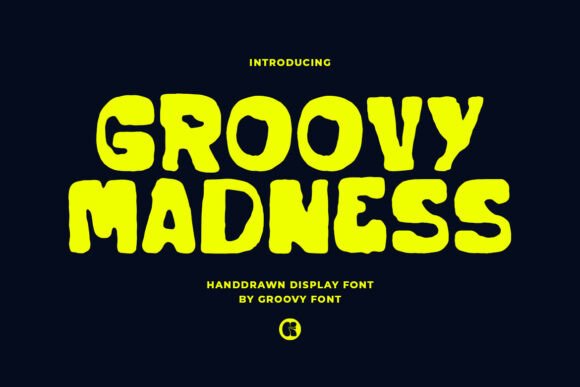
Groovy Madness Font: Unleash the Rebellious Spirit in Your Designs
In the world of typography, fonts play a crucial role in conveying the tone and personality of a design. When it comes to creating bold and eye-catching visuals, the right font can make all the difference. If you’re looking for a font that exudes a rough and bold aesthetic, look no further than the Groovy Madness Font. This hand-drawn display font is perfect for projects that call for a rebellious or urban vibe, and its unique handcrafted look is sure to add a touch of boldness and attitude to your designs.
Distinctive Street Style
Groovy Madness Font boasts a distinctive street style that sets it apart from other fonts. Its rough and bold aesthetic is reminiscent of urban graffiti and street art, making it perfect for designs that require a rebellious or edgy feel. The font’s hand-drawn look gives it a unique personality that is sure to grab attention and leave a lasting impression.
Perfect for Rebellious and Urban Designs
Groovy Madness Font is ideal for a wide range of design applications, from posters and flyers to logos and branding materials. Its bold and eye-catching aesthetic makes it perfect for designs that require a strong and confident look. Whether you’re creating a logo for a music festival, a poster for a concert, or a brand identity for a fashion label, Groovy Madness Font is sure to add a touch of attitude and personality to your design.
Benefits of Using Groovy Madness Font
- Unique and Handcrafted Look: Groovy Madness Font boasts a unique and handcrafted look that sets it apart from other fonts.
- Bold and Eye-Catching Aesthetic: The font’s bold and eye-catching aesthetic makes it perfect for designs that require a strong and confident look.
- Rebellious and Urban Vibe: Groovy Madness Font is perfect for designs that require a rebellious or urban vibe, making it ideal for music festivals, concerts, and fashion labels.
- Easy to Read: Despite its bold and rough aesthetic, Groovy Madness Font is easy to read, making it perfect for use in a wide range of design applications.
Tips for Using Groovy Madness Font
To get the most out of Groovy Madness Font, here are a few tips to keep in mind:
- Use it Sparingly: Due to its bold and eye-catching aesthetic, it’s best to use Groovy Madness Font sparingly to avoid overwhelming the viewer.
- Pair it with a Neutral Font: Pair Groovy Madness Font with a neutral font to create contrast and add visual interest to your design.
- Experiment with Colors: Groovy Madness Font looks great in a wide range of colors, so don’t be afraid to experiment and find the perfect hue for your design.
In conclusion, Groovy Madness Font is a hand-drawn display font that exudes a rough and bold aesthetic. Its unique handcrafted look and distinctive street style make it perfect for designs that require a rebellious or urban vibe. With its bold and eye-catching aesthetic, Groovy Madness Font is sure to add a touch of attitude and personality to your designs. So why not give it a try and see how it can elevate your typography to the next level?